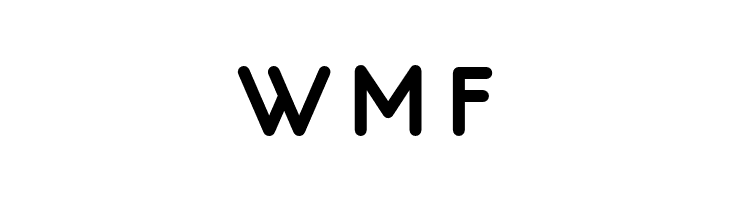
Veggieburger Font
A playful, rounded font with smooth curves and a friendly appearance.
A bold, rounded font with a playful and modern style.
A clean, modern font with rounded edges and a friendly appearance.